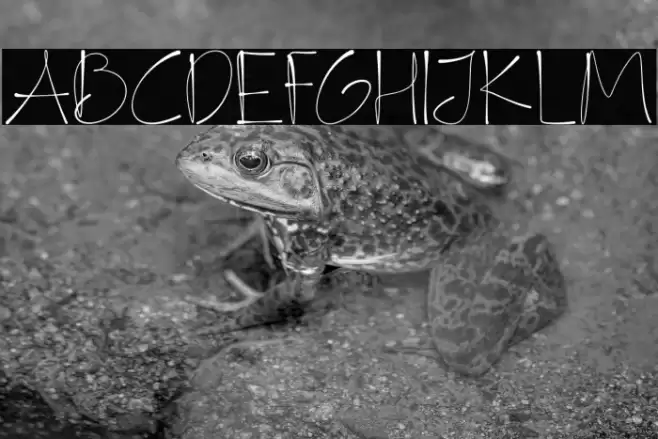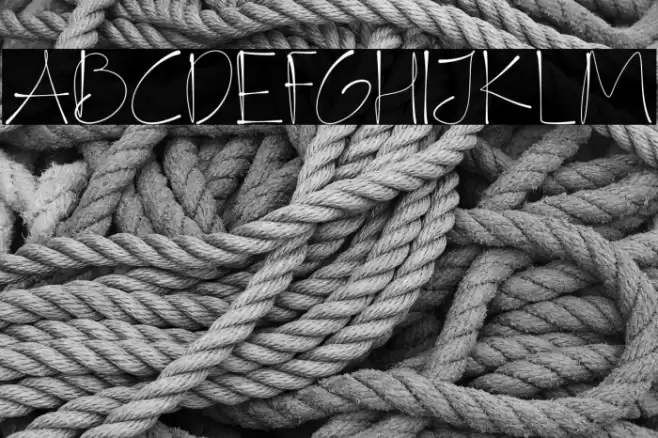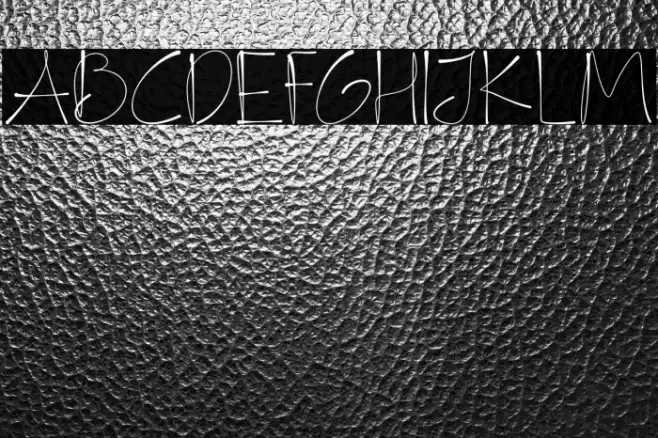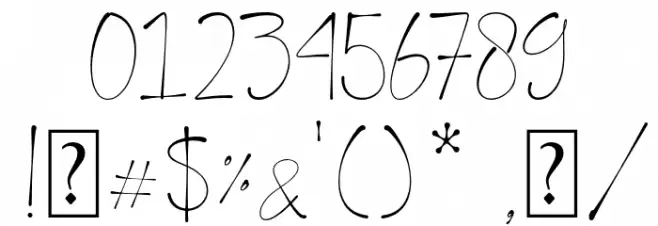
FlyHighDemo Font
FlyHighDemo Description
This font features a playful and whimsical handwritten style, characterized by its thin, elongated strokes and slightly irregular letterforms. The uppercase and lowercase letters maintain a consistent height, giving it a uniform appearance despite its casual nature. The numerals and special characters follow the same design principles, ensuring coherence across all glyphs. The font's light weight and airy feel make it suitable for projects that require a touch of informality and creativity. Its unique style can add a personal and friendly touch to any design, making it ideal for invitations, greeting cards, and creative branding.
A playful, handwritten font with thin, elongated strokes and a whimsical style from Uncategorized fonts.
- Font: FlyHighDemo
- Proposed Projects: Ideal for invitations, greeting cards, creative branding, and informal communications.
- Weight: Light
- Overall Style: Whimsical
- Use Case: Logos, Invitations, Greeting Cards